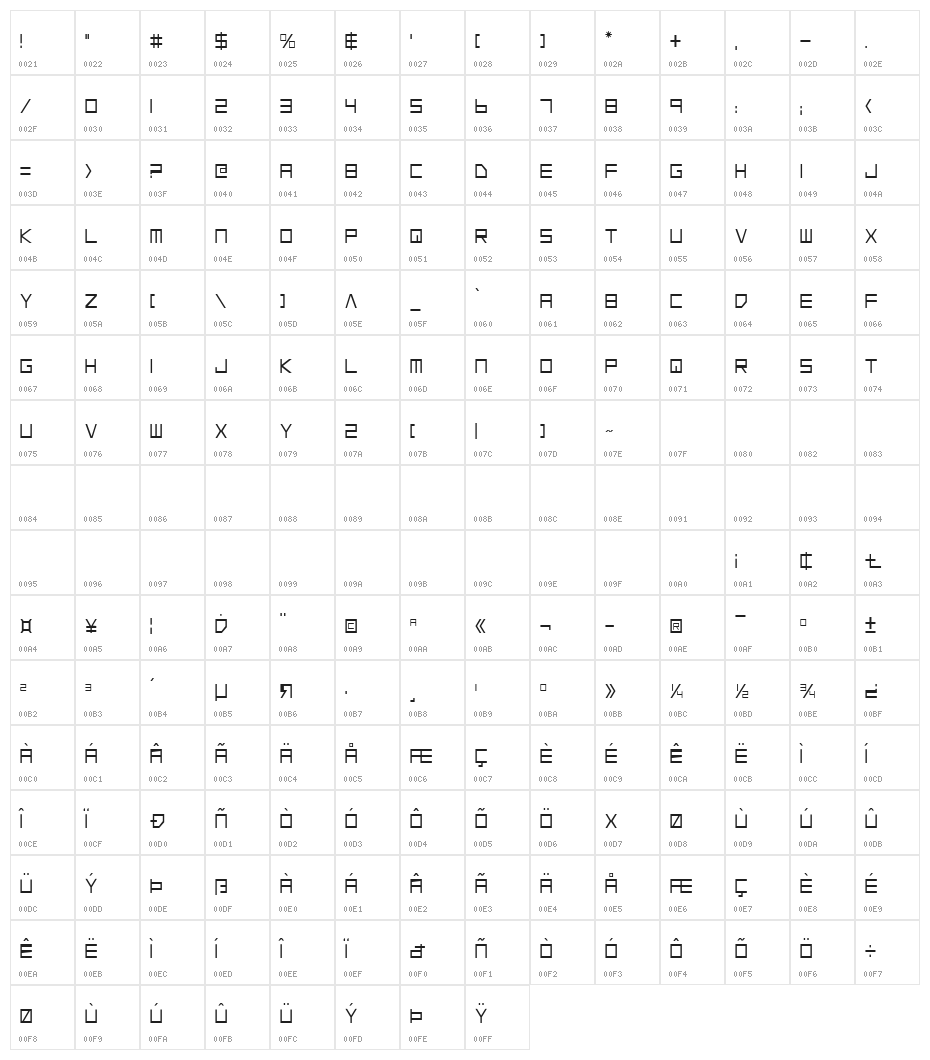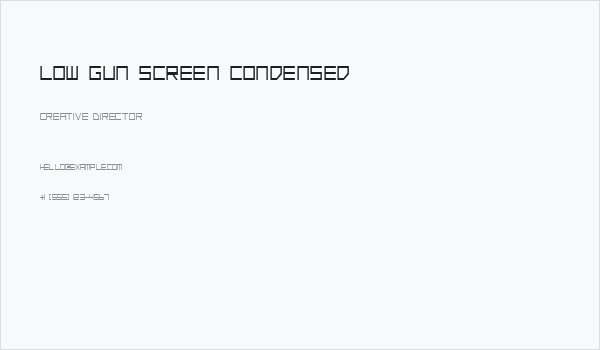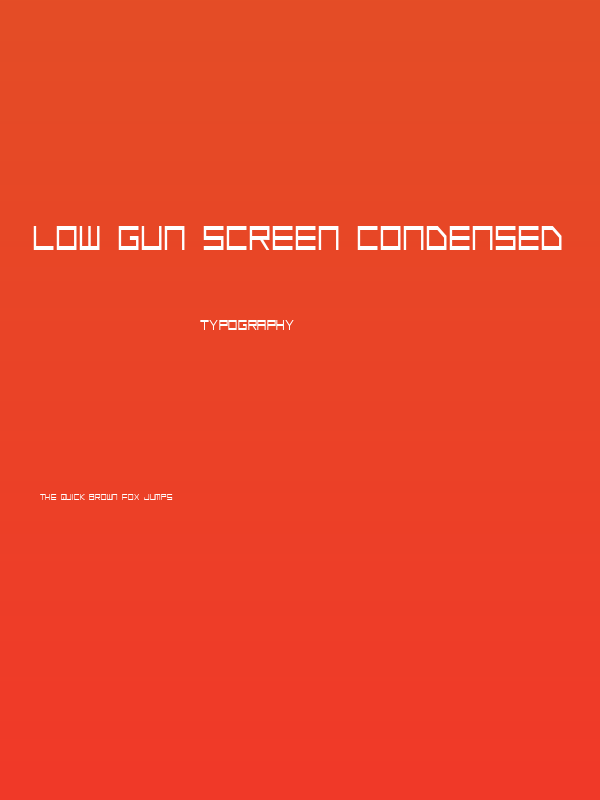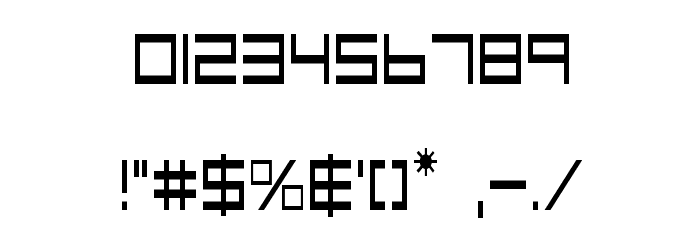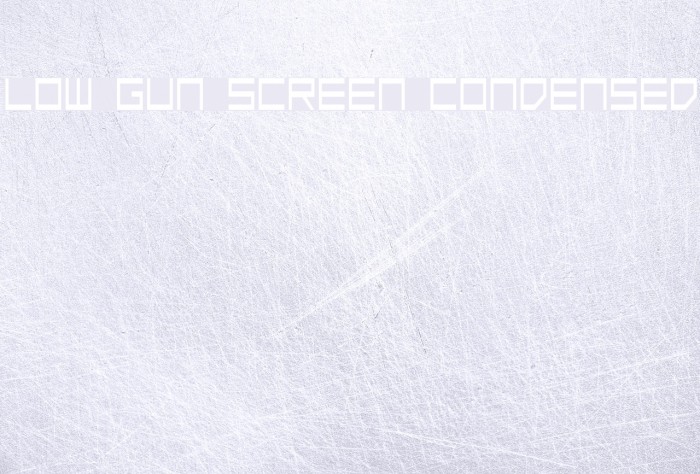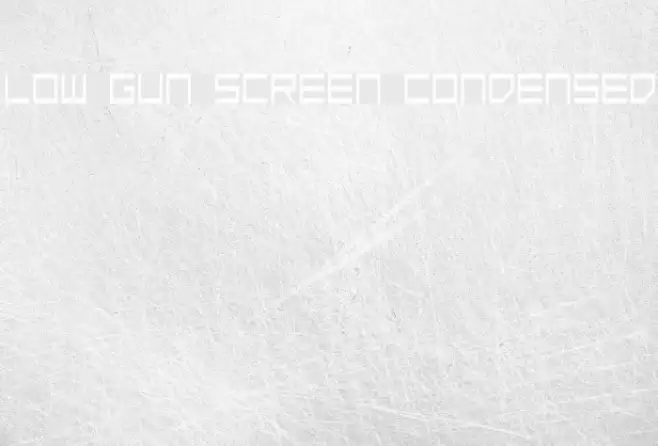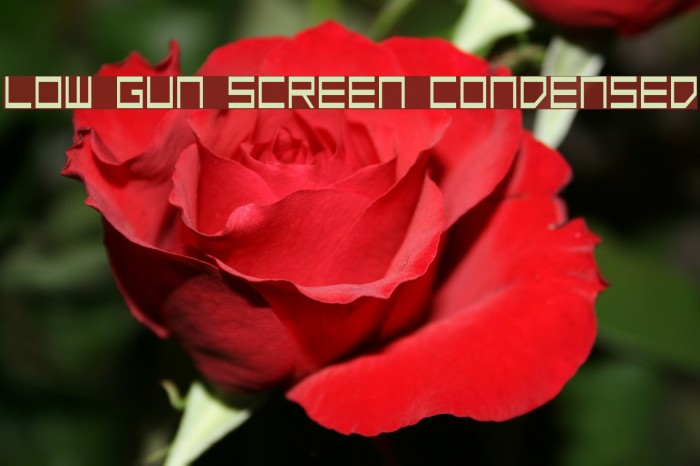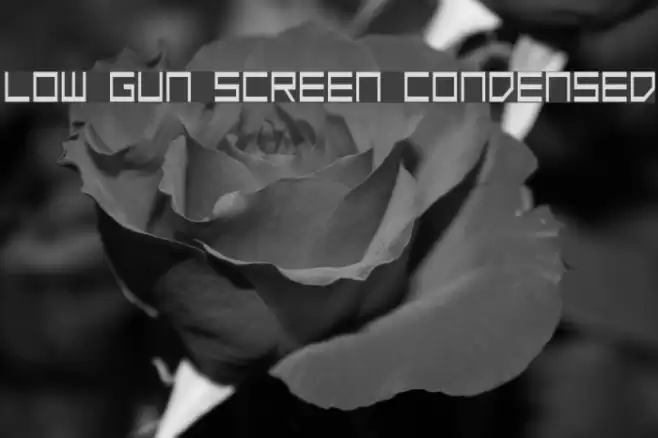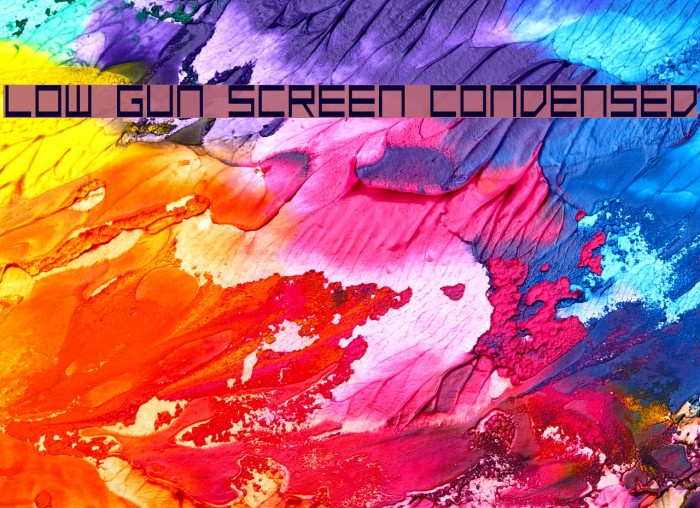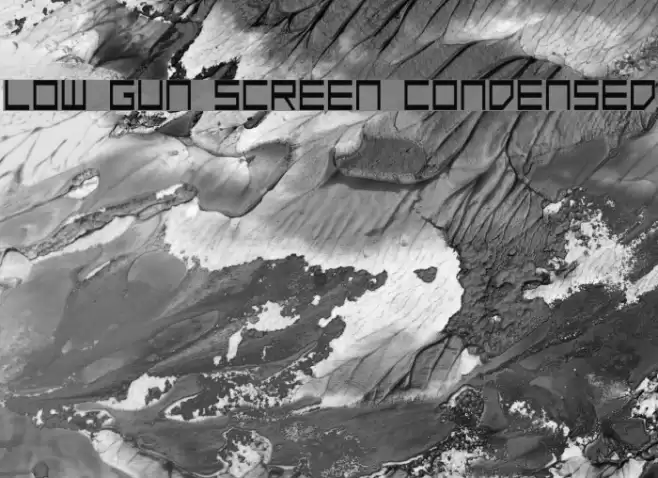
Low Gun Screen Condensed Font
| Vorgeschlagene Projekte | Ideal for sci-fi themed designs, tech company branding, video game interfaces, and modern posters. |